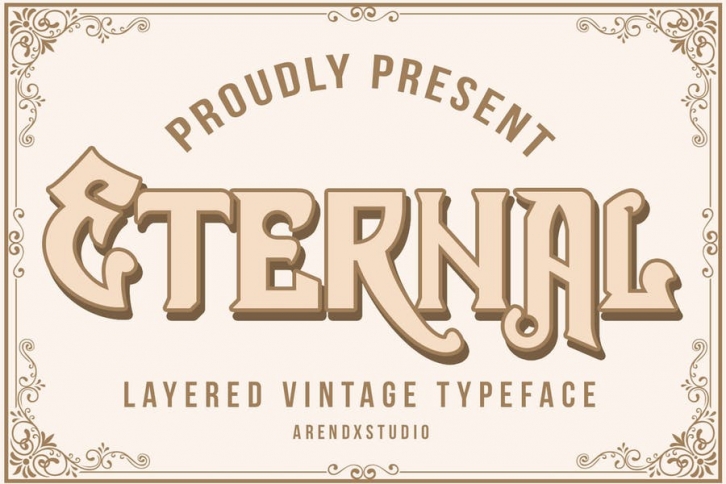
Introduce You Eternal
Eternal is a type of Vintage Font that is very different in character and very suitable for the display needs of each of your designs, has two variations, namely regular and outline, I'm sure you will like it
Eternal came with opentype features such stylistic alternates, stylistic sets & ligatures good for logotype, poster, badge, book cover, tshirt design, packaging and any more.